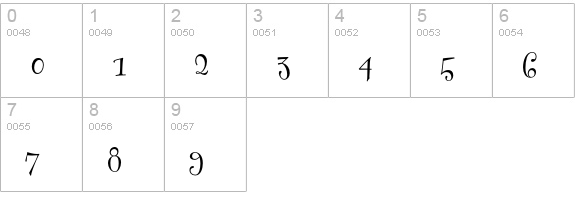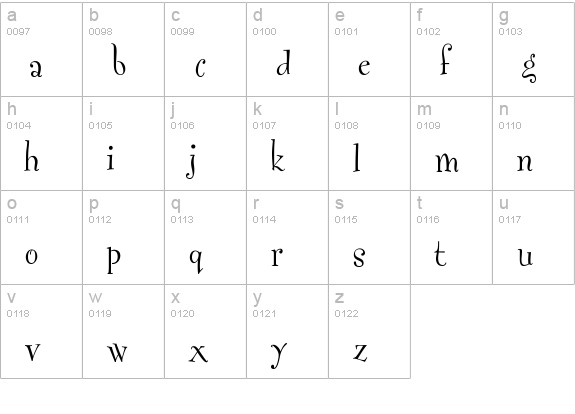
Fontesque is a beautiful and elegant serif font that exudes sophistication and charm. With its unique blend of classic and modern elements, this font is perfect for a variety of design projects, from elegant invitations to stylish branding materials. The clean lines and subtle curves of Fontesque give it a timeless appeal that will make your text stand out in any context. The best part? Fontesque is available for free download at FontsMarket.com, making it accessible to designers of all skill levels. Whether you're a seasoned professional or just starting out, this versatile font is sure to elevate your designs and bring a touch of class to your projects. Don't miss out on the opportunity to add Fontesque to your font collection and take your designs to the next level.